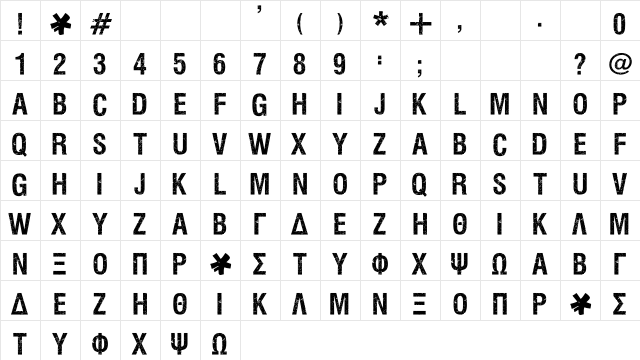
VIPER NORA Regular Font Preview
VIPER NORA Regular
VIPER NORA Regular Font Details
Design Context for VIPER NORA Typeface
VIPER NORA is a composed and adaptable typeface that performs quietly and consistently across a wide range of design contexts.